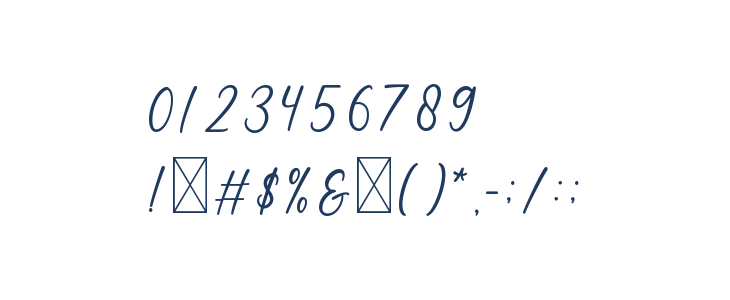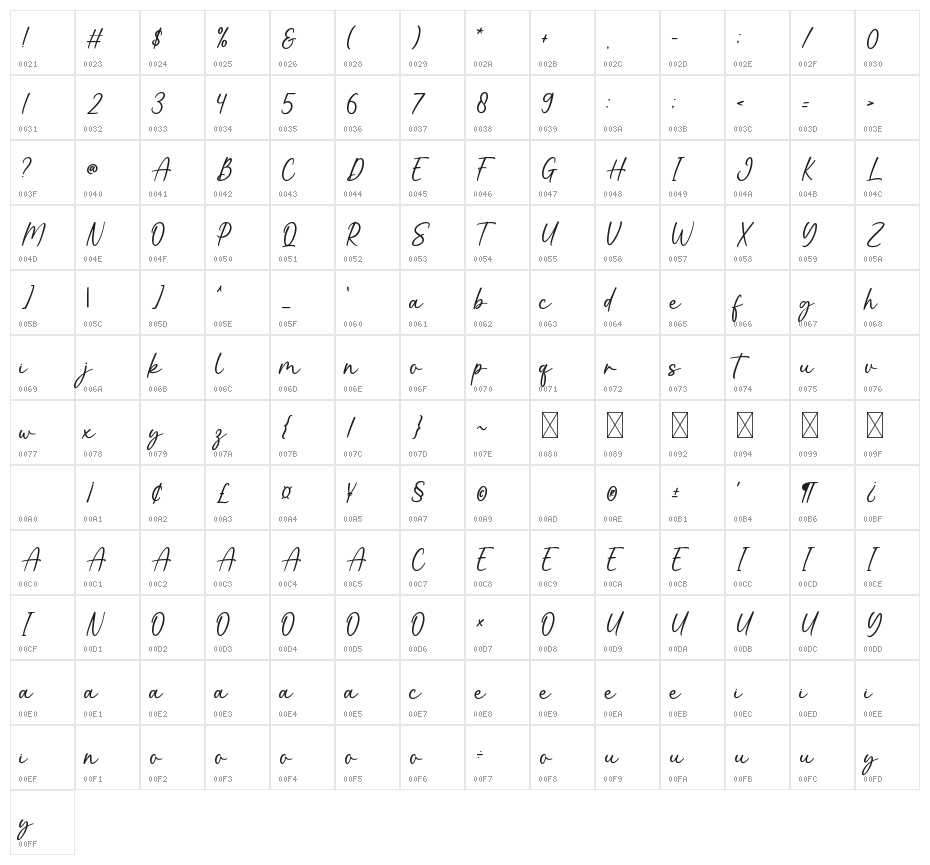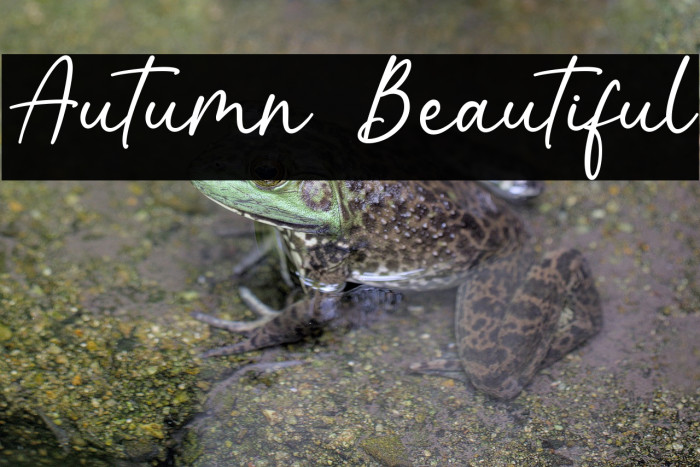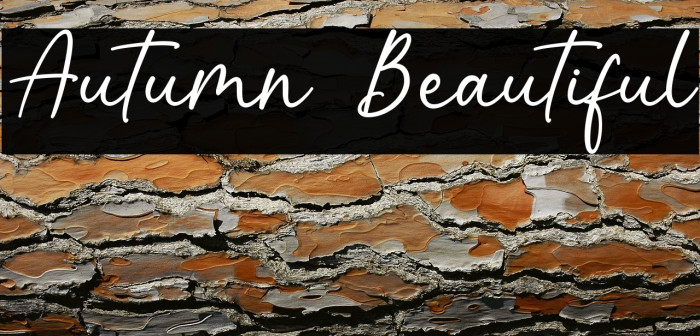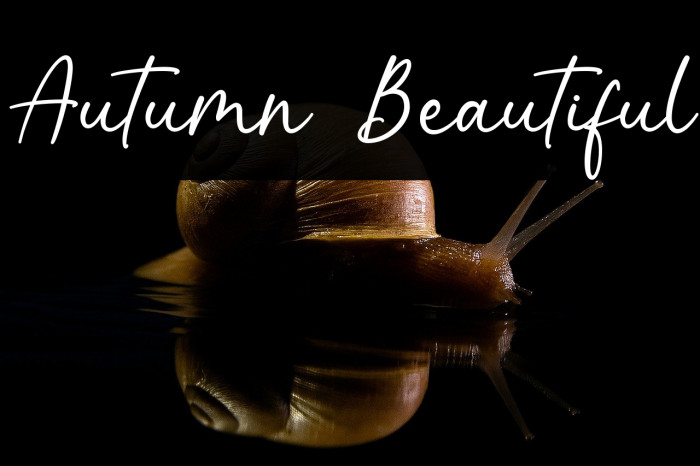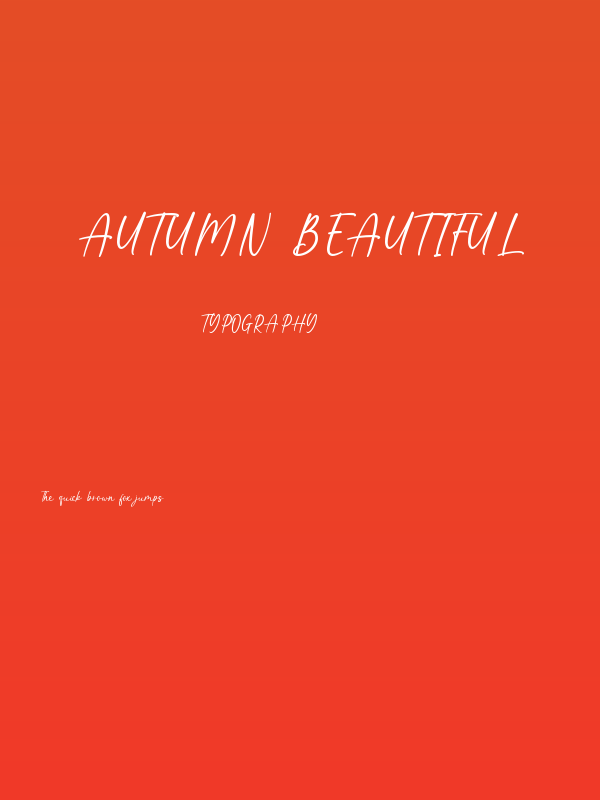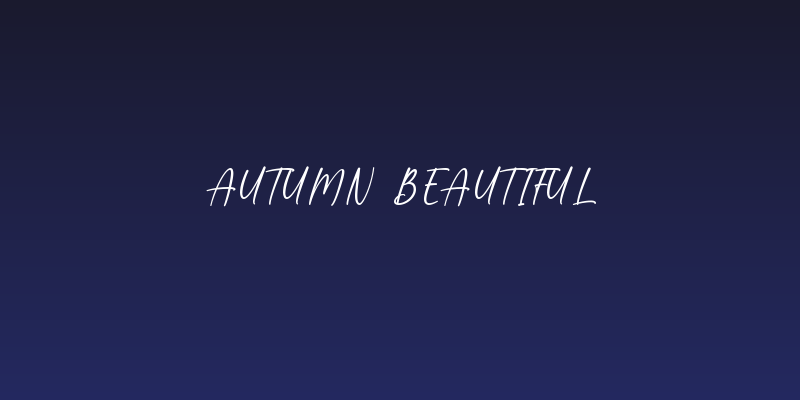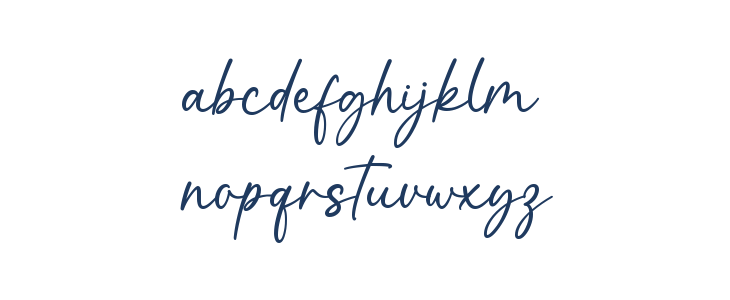
Autumn Beautiful Font
Autumn Beautiful Description
This font exudes a casual and elegant handwritten style, characterized by smooth, flowing lines and a natural, organic feel. The letters are slightly slanted, giving a sense of movement and fluidity. Uppercase letters are bold and prominent, while lowercase letters maintain a consistent flow, enhancing readability. The numerals are clear and distinct, matching the overall style of the alphabet. Special characters are well-integrated, maintaining the font's cohesive look. This font is perfect for projects that require a personal touch, such as invitations, greeting cards, or branding materials.
| Overall Style | Casual, Elegant |
| Use Case | Headlines, Logos, Invitations |
| Proposed Projects | Ideal for invitations, greeting cards, branding, and personal projects. |